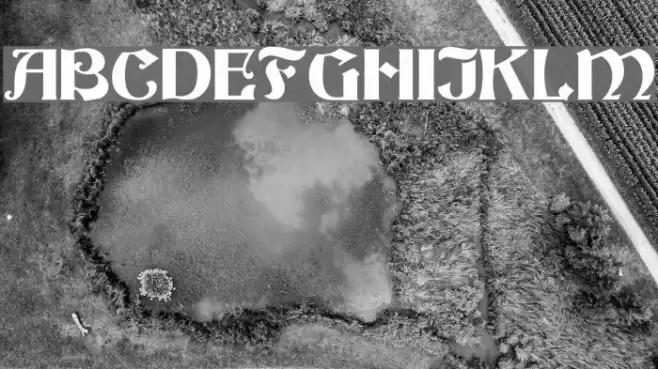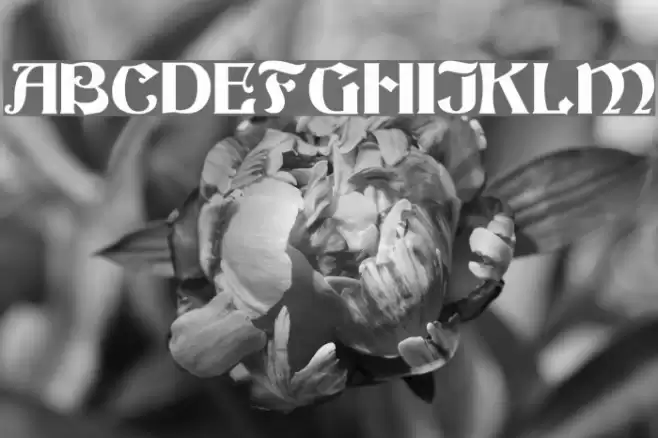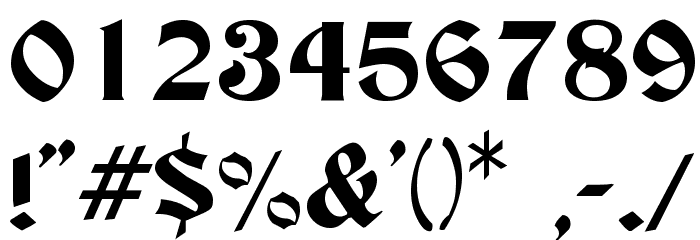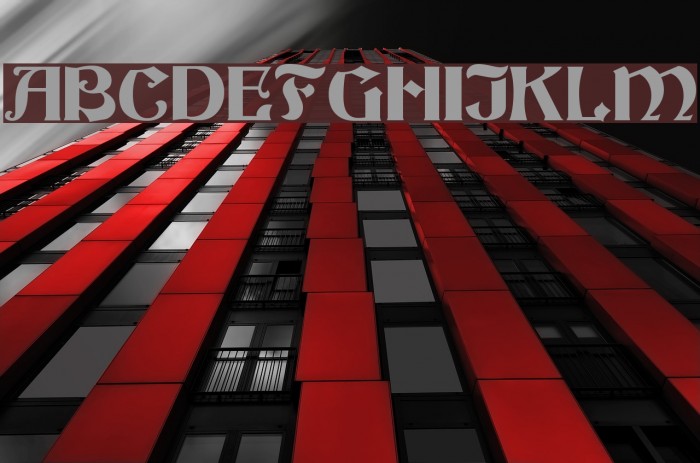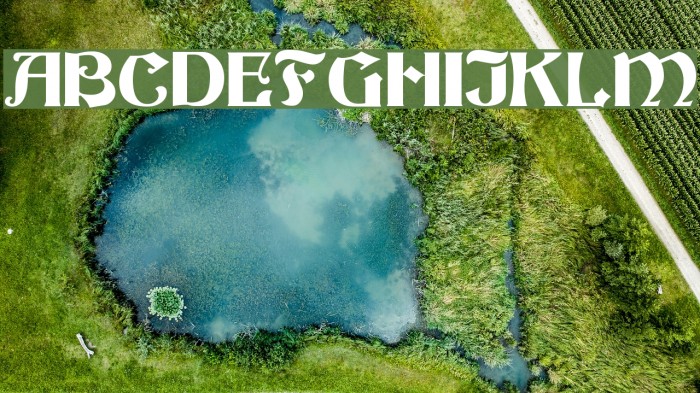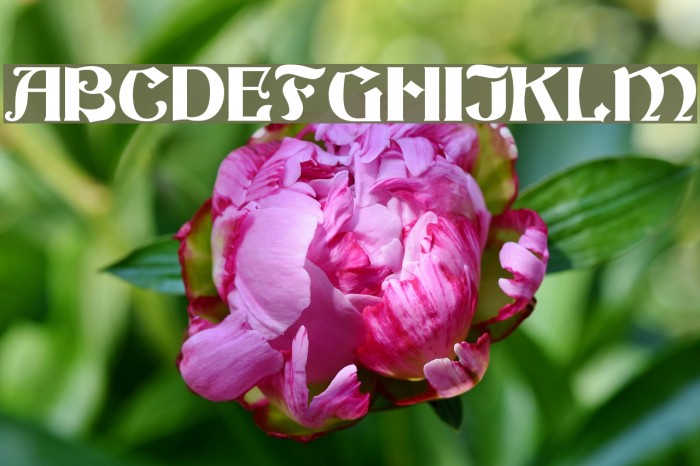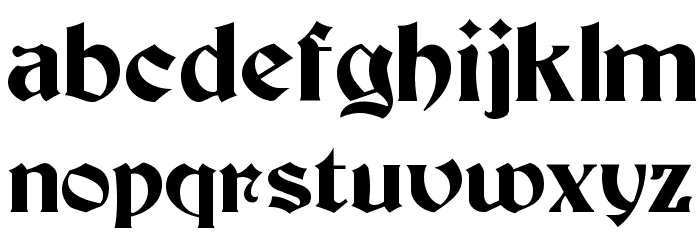
Buckingham Regular Font
Buckingham Regular Description
This font features a bold and dramatic style with a strong presence, characterized by its sharp, angular serifs and high contrast between thick and thin strokes. The uppercase letters are particularly striking, with a medieval, gothic influence that adds a sense of grandeur and tradition. The lowercase letters maintain this aesthetic with a slightly more subdued appearance, ensuring readability while preserving the overall decorative style. The numerals are consistent with the font's bold nature, offering a cohesive look across all characters. Special characters are designed with the same attention to detail, making them suitable for a variety of uses.
A bold, gothic-inspired font with sharp serifs and high contrast strokes from Decorative fonts.
- Proposed Projects: Ideal for projects requiring a historical or traditional feel, such as book covers, posters, or branding for luxury products.
- Overall Style: Vintage
- Use Case: Headlines, Logos, Decorative text